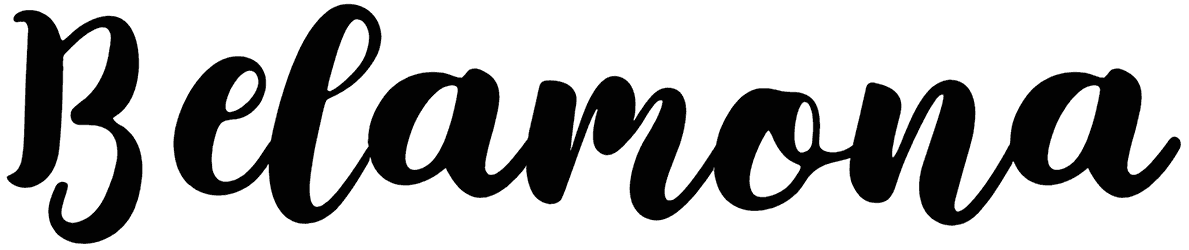
Belamona Font
Belamona’s calligraphy style is what you need to be seen and become a trusted brand. This script font has soft twists that do not pressure the eyes and can add beauty to different design formats.
This is why it will soon become your favorite spring font, which can give your writings an advertising look with prominent and bold letters. So if you’re looking for a versatile font for posters, letters, or packaging, you’ve come to the right place.